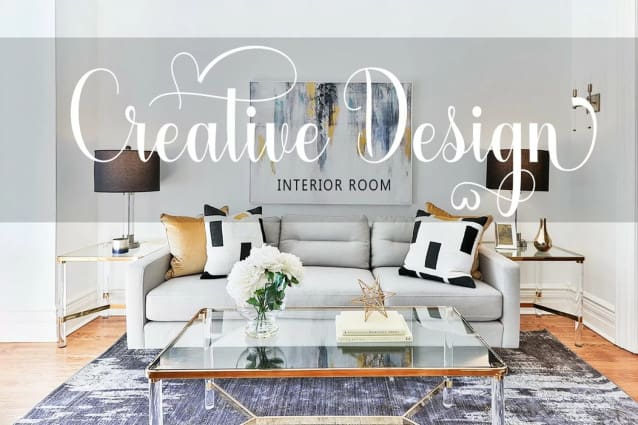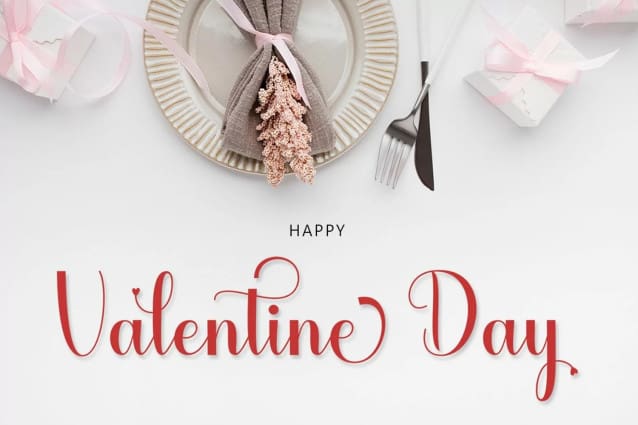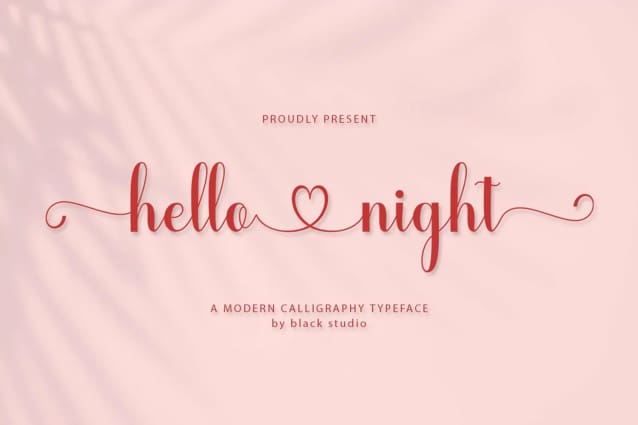
Hello Night Font
Hello Night Font is a very easy-to-read Script typeface, getting a touch of the bold, classic, and fun Vintage Script font, featuring glyphs and opentypes in alternative styles. Can be used for various purposes. such as posters, t-shirts, signboards, logos, news, badges etc. To activate the OpenType Stylistic alternative, you need a program that supports OpenType features such as Adobe Illustrator CS, Adobe Indesign & CorelDraw X6-X7, Microsoft Word 2010 or a later version.